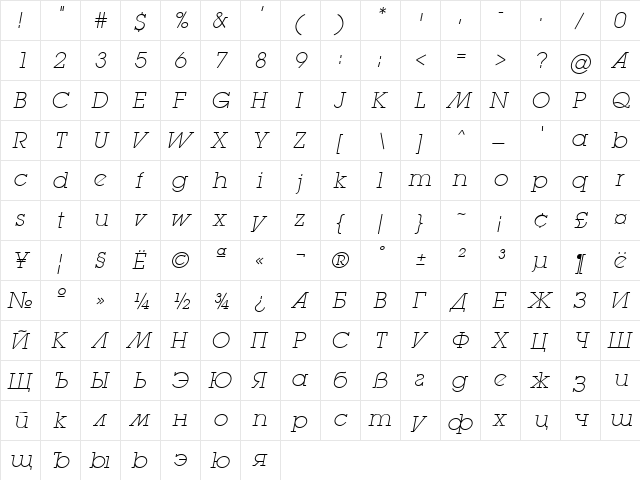
LugaExtraAd ExtraLight Oblique Font Preview
LugaExtraAd ExtraLight Oblique
LugaExtraAd ExtraLight Oblique Font Details
Design Context for LugaExtraAd Typeface
LugaExtraAd takes a measured approach to typography — its balanced proportions and neutral character make it a reliable workhorse for both digital and print work. Its italic angle brings a sense of urgency and motion to the letterforms. Its slender proportions lend an understated elegance to any composition.
Pro Tip: Use LugaExtraAd for emphasis, pull quotes, and subheadings where its slanted energy can add rhythm to the layout.